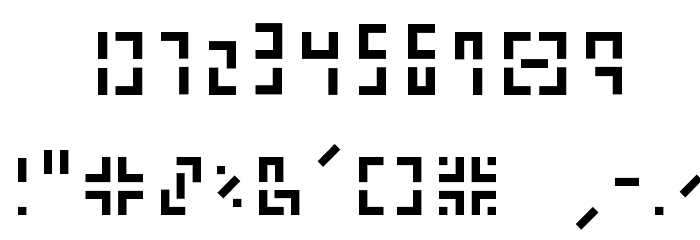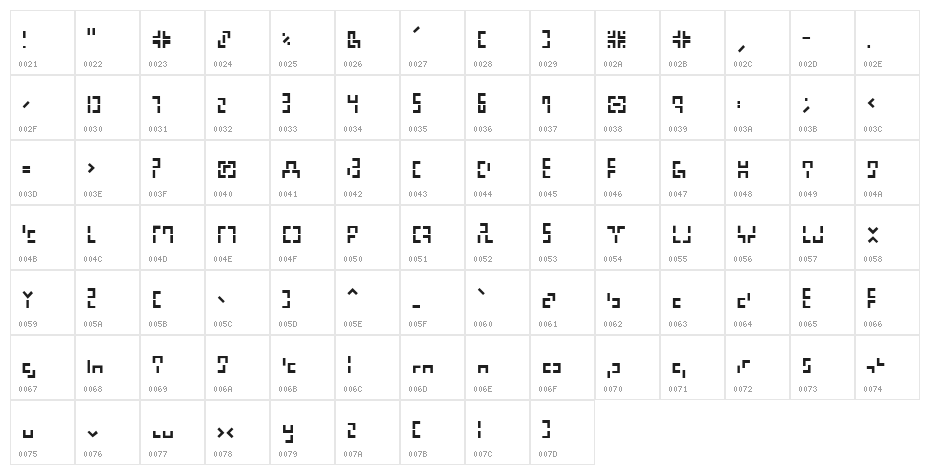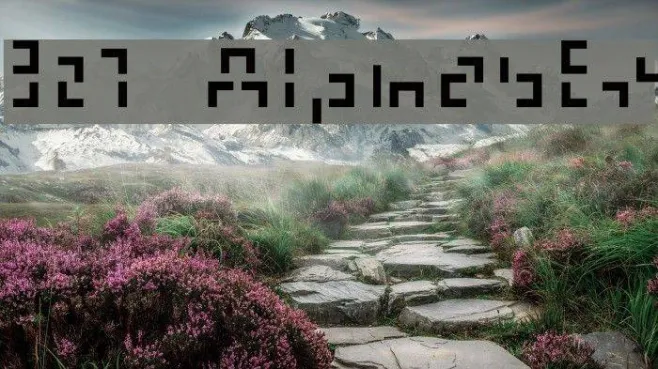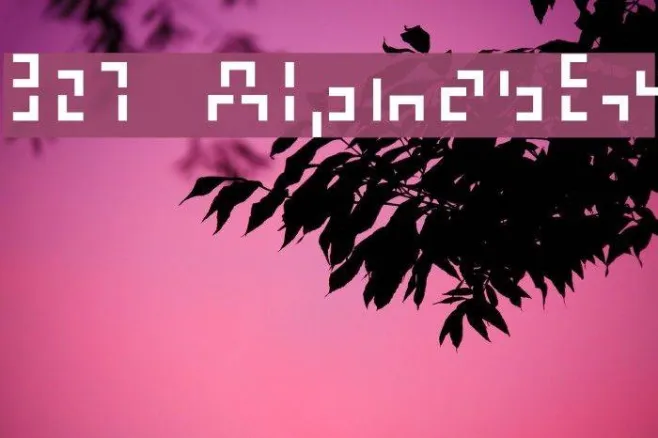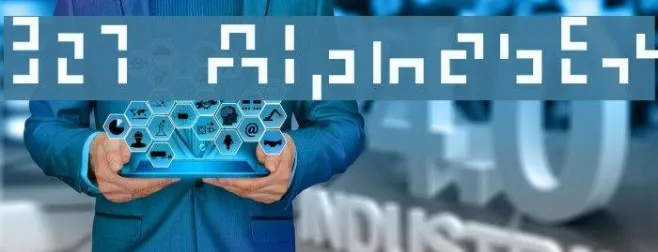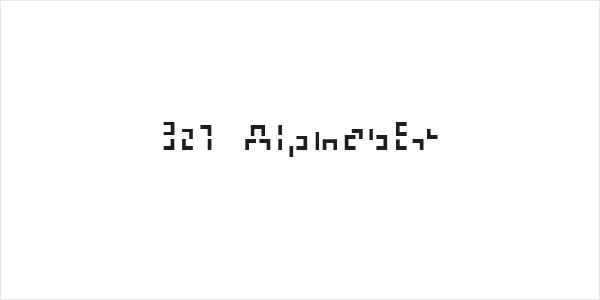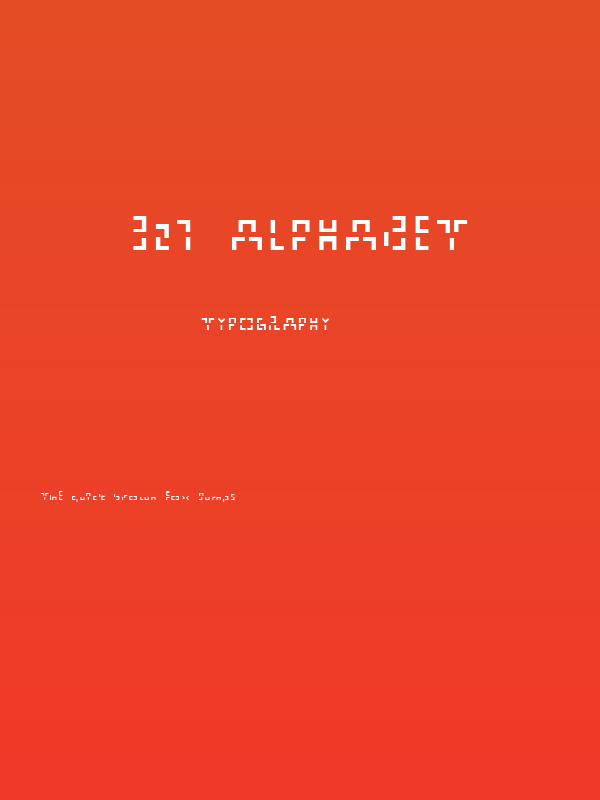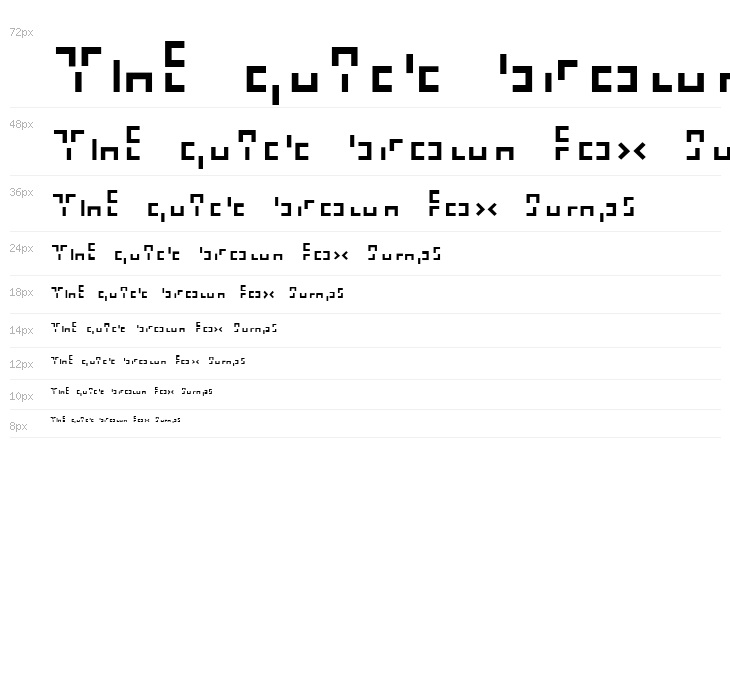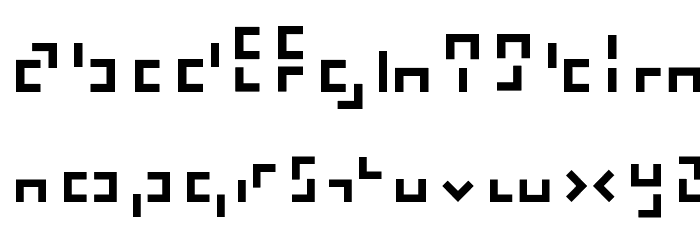
321 Alphabet Font
321 Alphabet Description
This font features a highly geometric and pixelated design, reminiscent of early digital or arcade game typography. Each character is constructed with a series of square and rectangular blocks, creating a distinct, futuristic appearance. The uniformity in the block shapes gives the font a cohesive look, while the angular edges and straight lines contribute to its modern and tech-inspired aesthetic. The characters are evenly spaced, maintaining a consistent rhythm across the text. This style is particularly effective in conveying a sense of digital or retro-futuristic themes, making it ideal for projects that require a bold, unconventional typeface.
| Proposed Projects | Ideal for video game design, tech-themed posters, digital art, and branding for technology companies. |